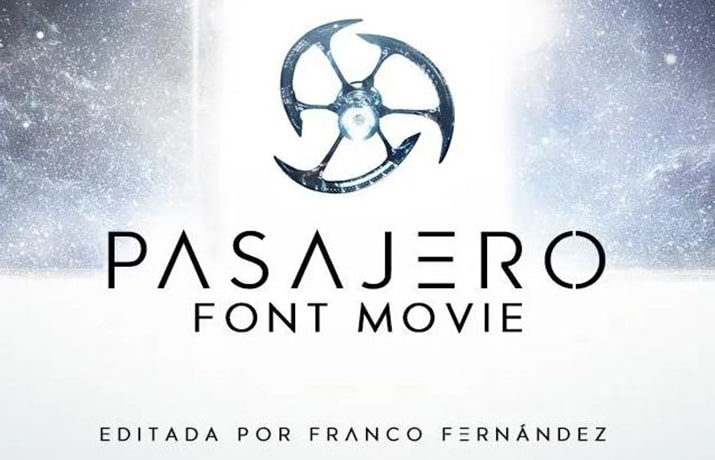
Today we are Introducing Pasajero Font! It is basically a thriller film directed by Jaume Ruiz Arbeloa.
It was first published in the United States on January 12, 2018. The total budget of this film was around 30 million dollars while it grossed around 120 million dollars.
So, you can easily estimate the fan following of this movie. A font family is used in the logo of this movie here we are giving this font absolutely free.
It was first created by Franco Fernandez and released in 2017 by FZ Fonts. So, you can download it at Fonts Monster.
Font Designer: Franco Fernández
You can use this typeface in a wide range of design industries. For example, creating logos, book covers, official cards, welcome or wedding cards, product design, book layouts, titles, banner ads, movie posters, as well as many developing uses.
It has 142 glyphs in OpenType file format. A large number of designers are using this sans serif font for their developing projects as it is perfect for title and headline purposes.